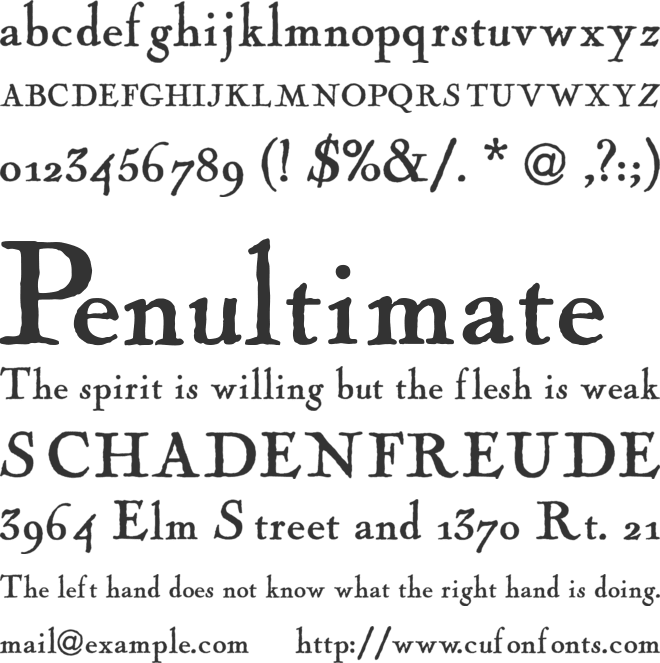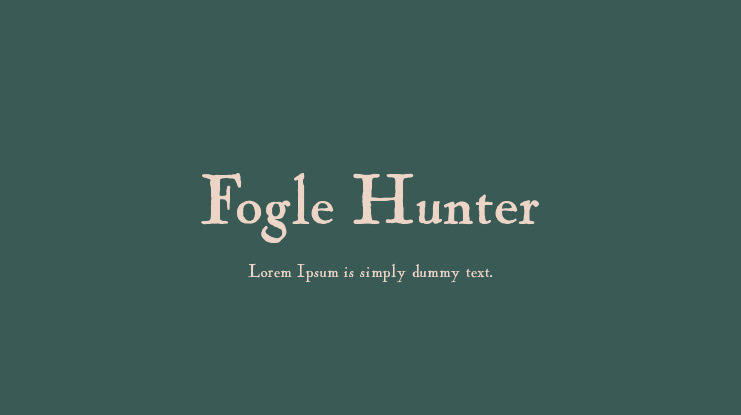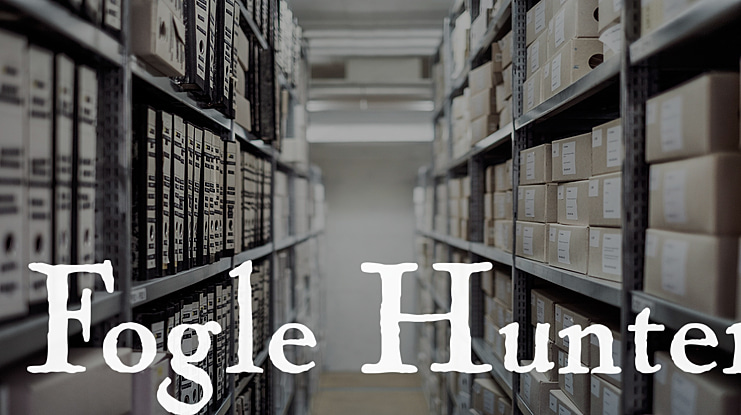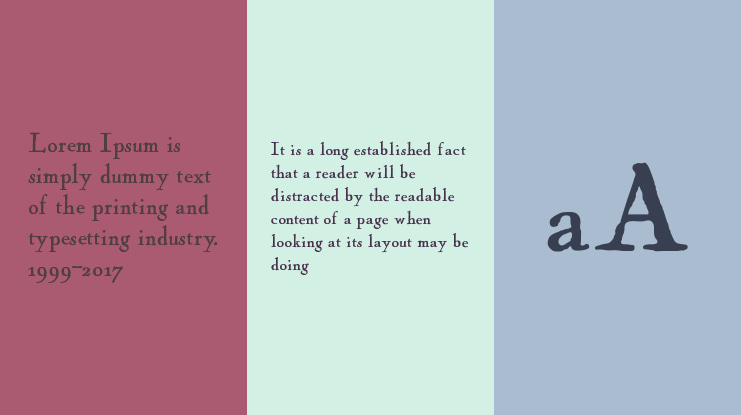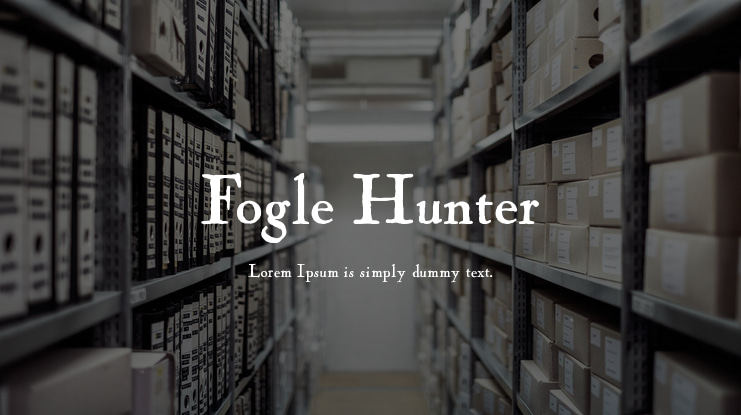
Fogle Hunter Font
Fogle Hunter regular is a rustic but fancy typeface straight outta the 17th century.
The font Fogle Hunter regular is suitable for pirate correspondence, lavender logos, Sherlock Holmes business cards or just about anything that needs an old school touch.